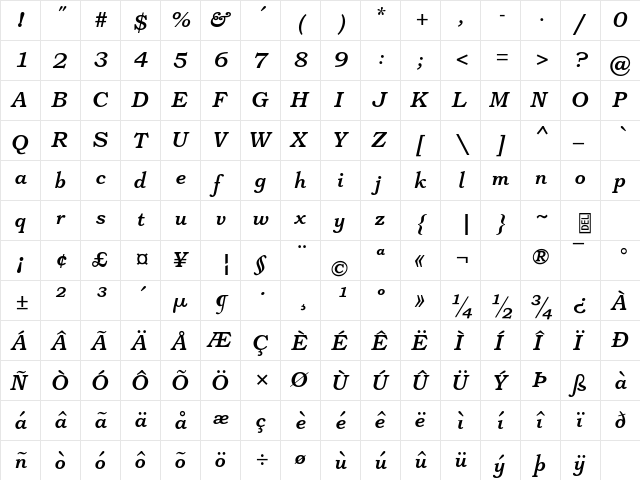
Alfios Bold Italic
| Designer | George Douros |
Design Context for Alfios Typeface
Alfios takes a measured approach to typography — its balanced proportions and neutral character make it a reliable workhorse for both digital and print work. The slanted form adds forward momentum and visual energy. Its bold stroke weight gives it real presence on the page.
Pro Tip: Try Alfios for annotation and caption copy alongside an upright companion — the contrast in angle creates a dynamic but ordered typographic system.